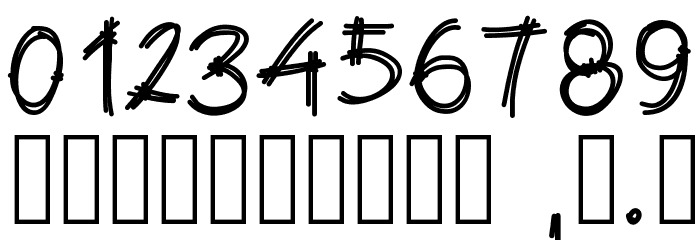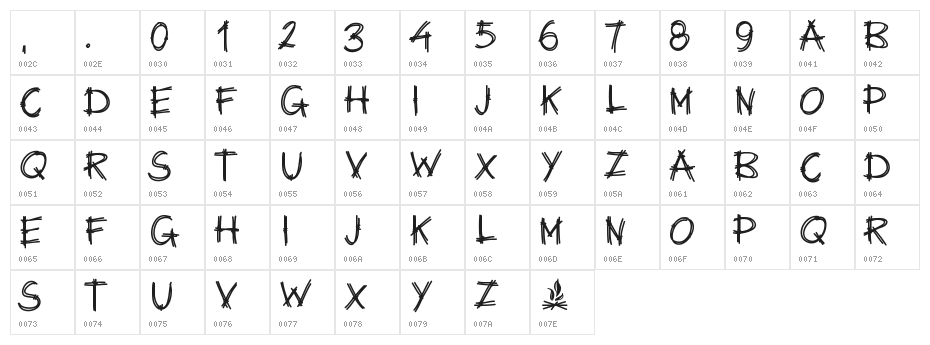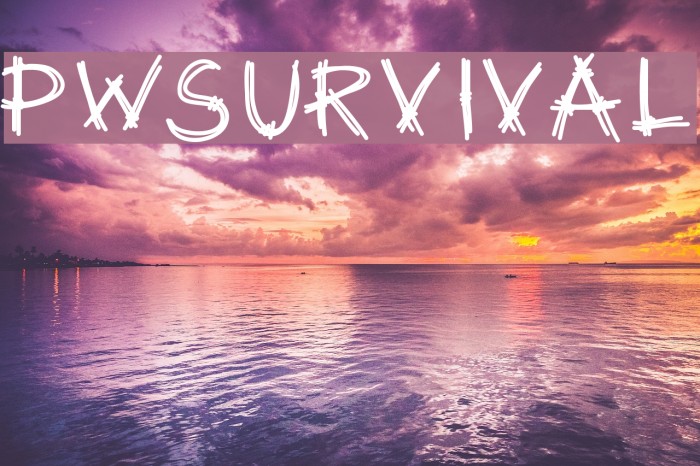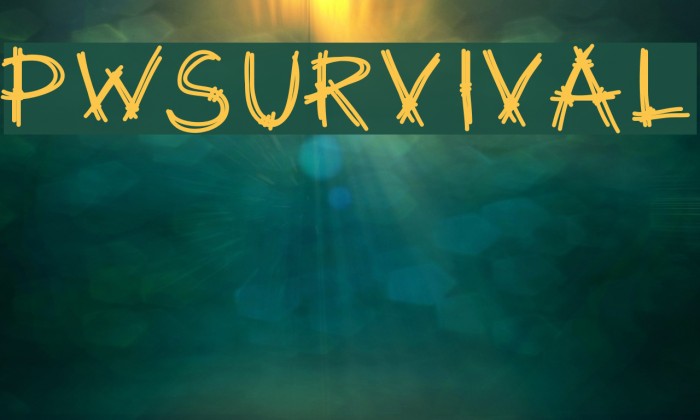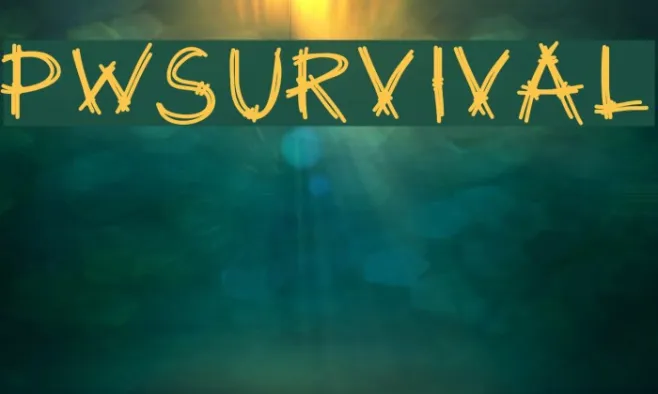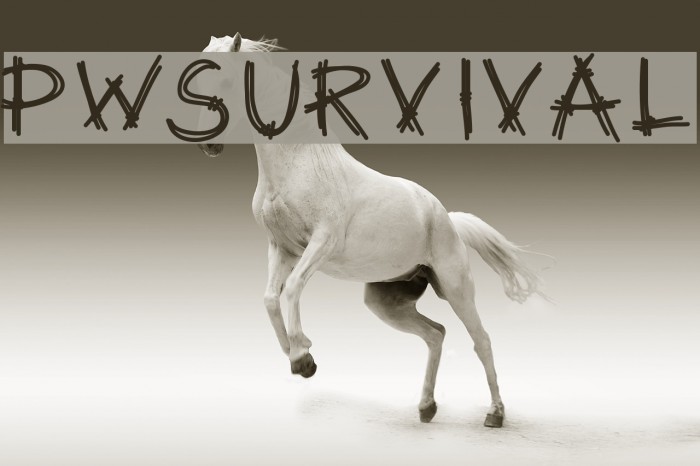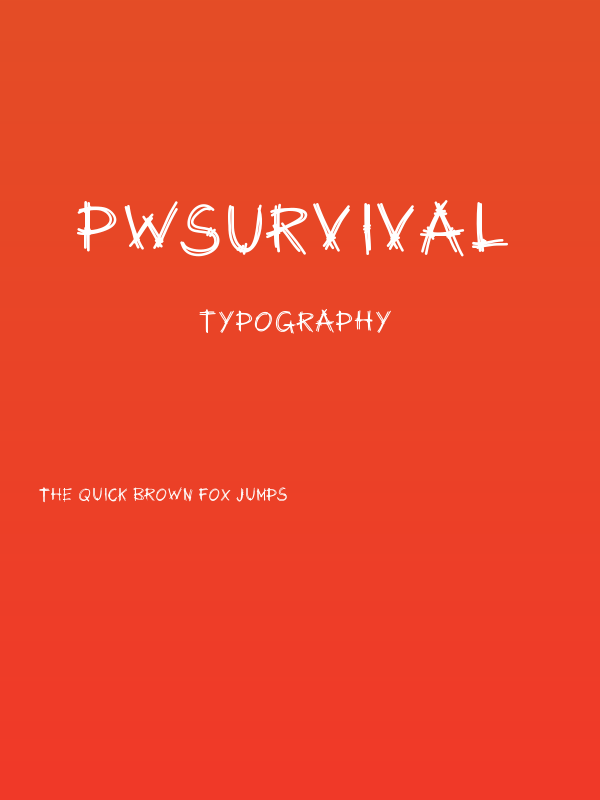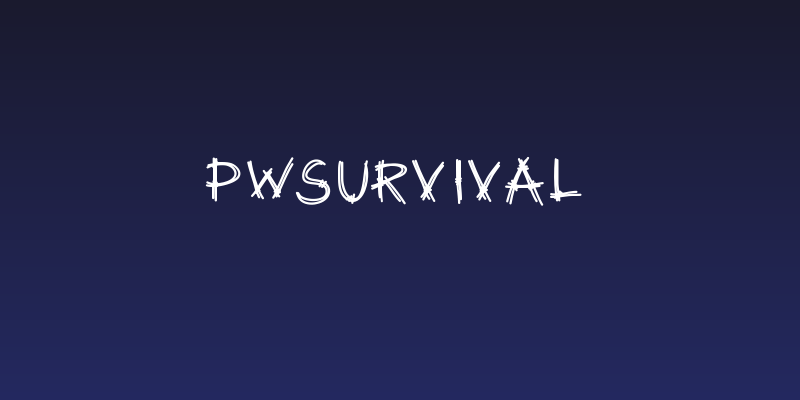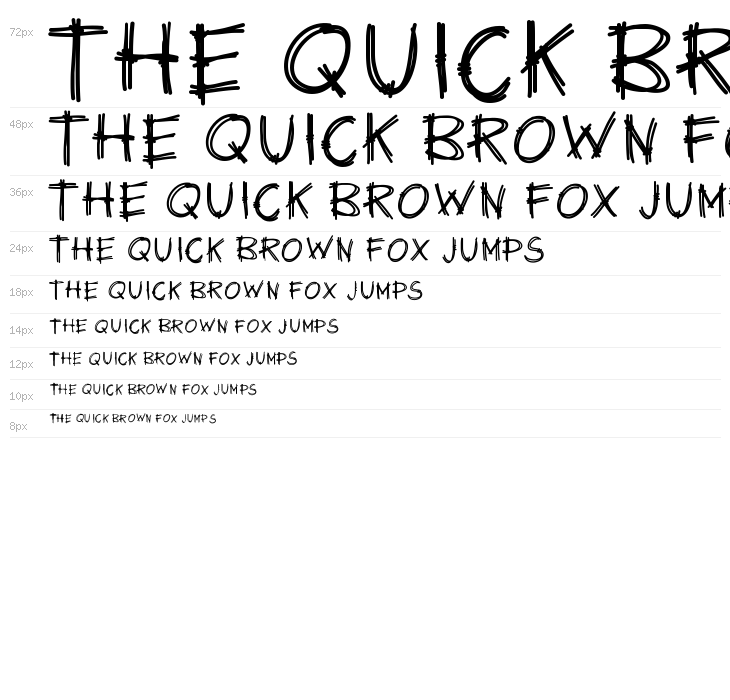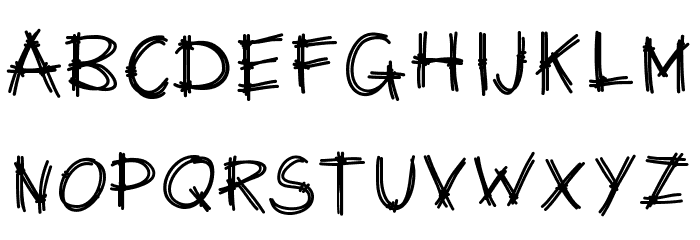
PWSurvival Font
PWSurvival Description
This font features a rugged, hand-drawn style with a distinctive, rough texture that mimics the look of scratched or etched letters. The characters are bold and dynamic, with uneven strokes that give a sense of movement and energy. The uppercase and lowercase letters maintain a consistent style, with a playful yet edgy appearance. Numbers and special characters follow the same design principles, ensuring a cohesive look across all text elements. The font's unique style makes it stand out, ideal for projects requiring a bold, artistic touch.
| Proposed Projects | Ideal for posters, album covers, graffiti art, and edgy branding projects. |